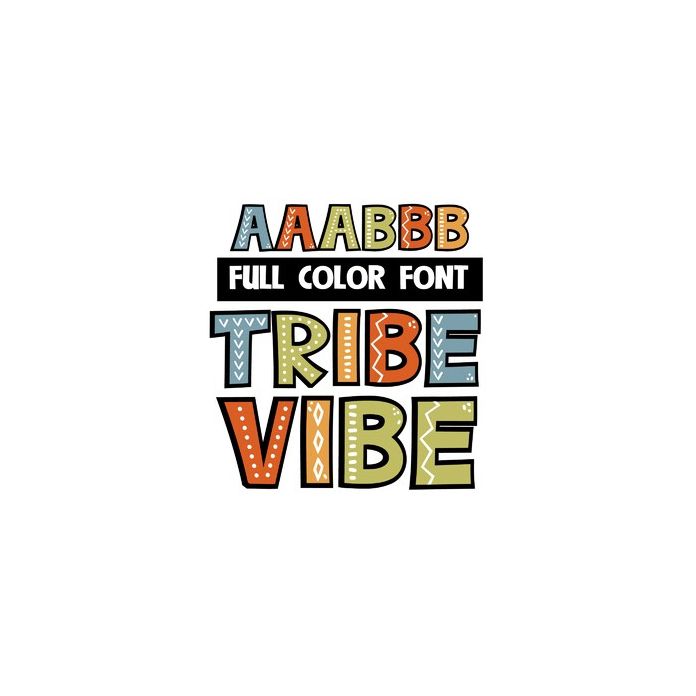
This bold full-color alphabet features bold, autumn-like colors and a heavy tribal influence design. There is an alt upper and lowercase with additional colors that you can access through Silhouette's glyph map. Use the triangle brackets to type the pretty floral flourish.